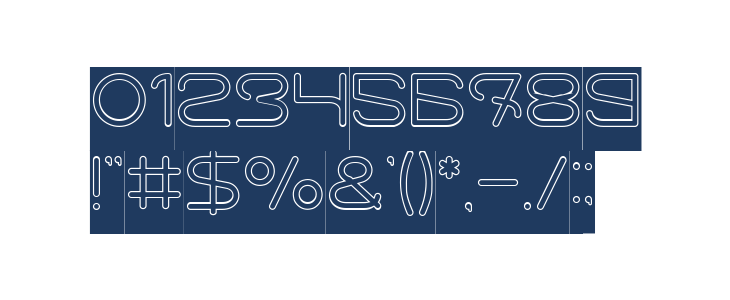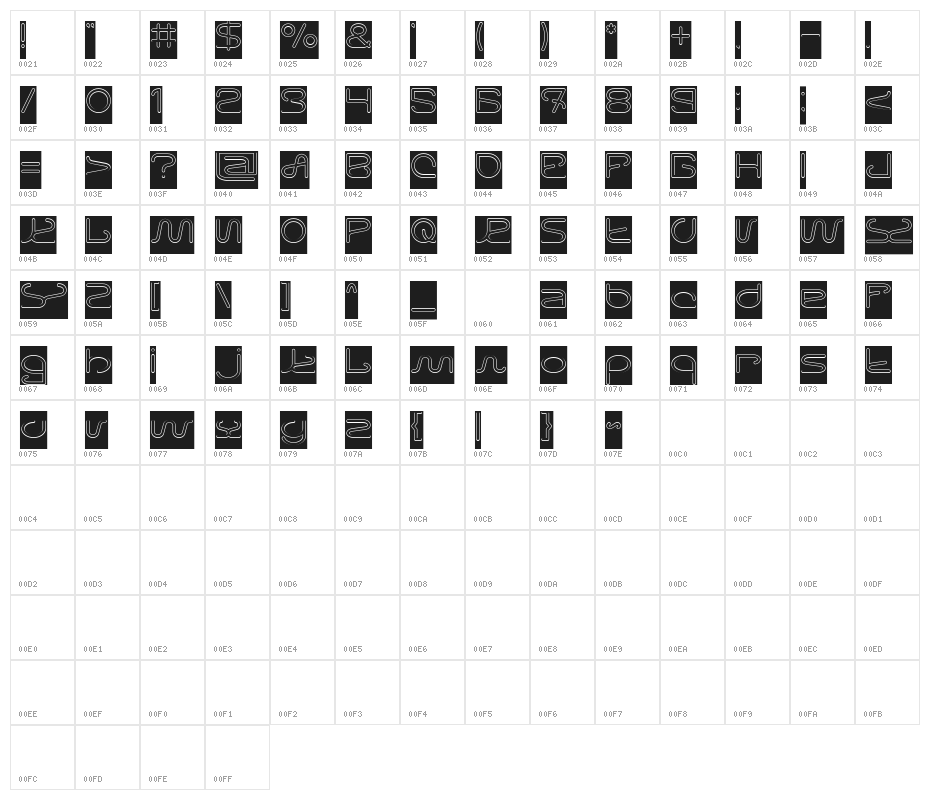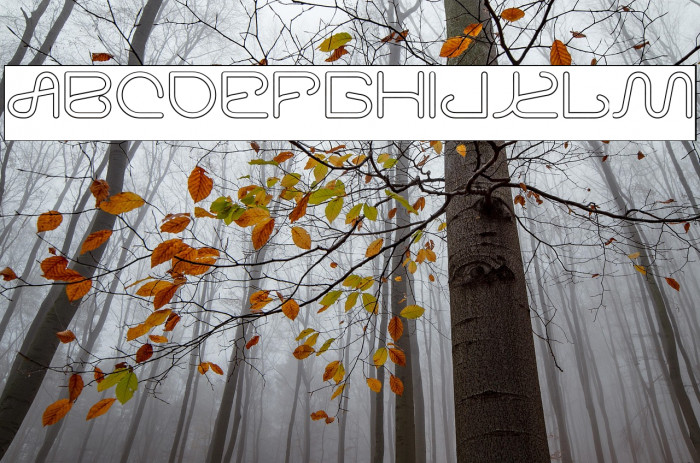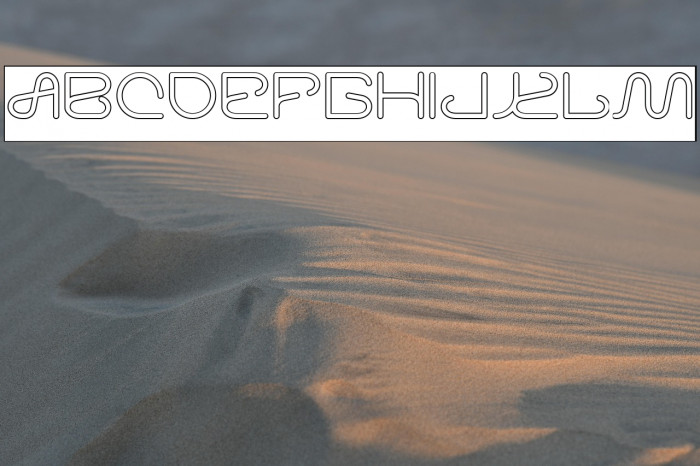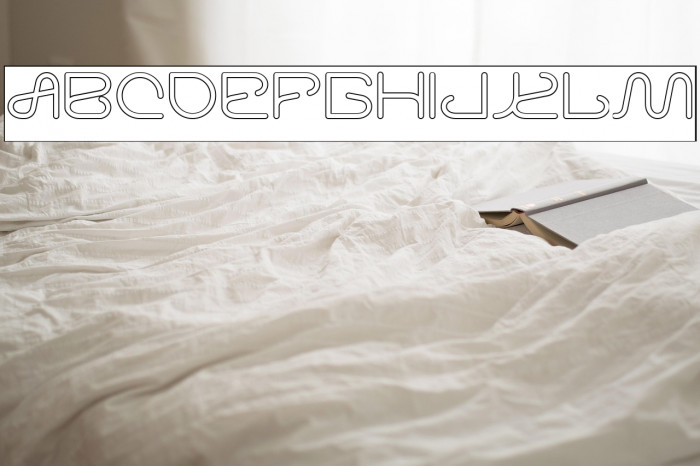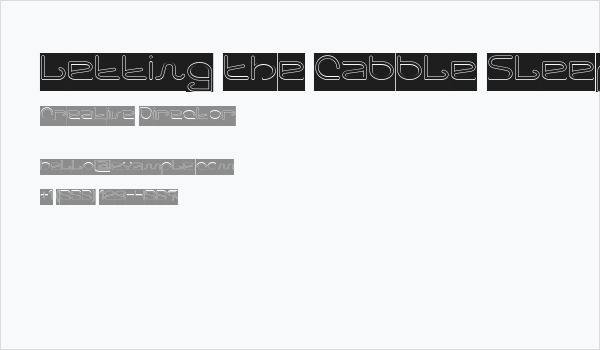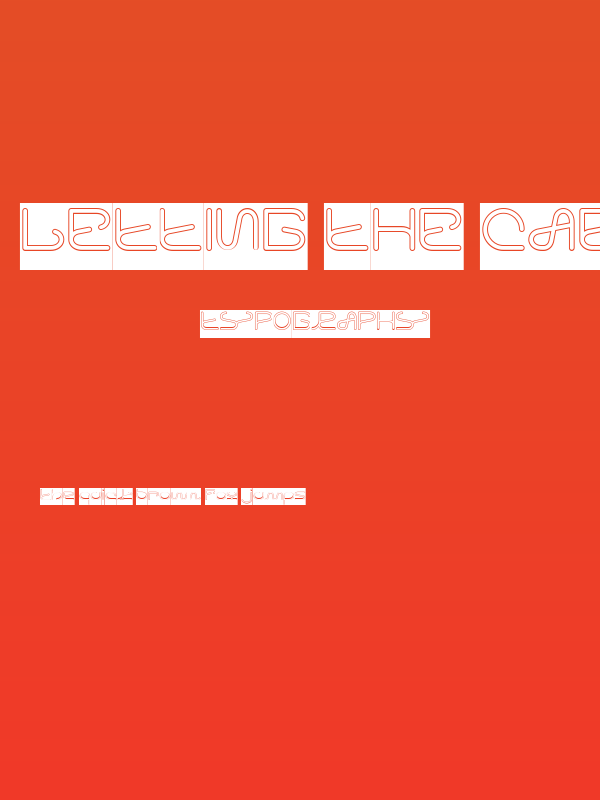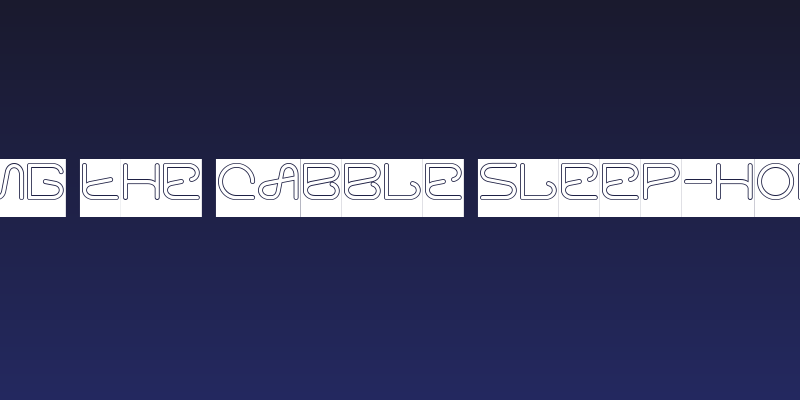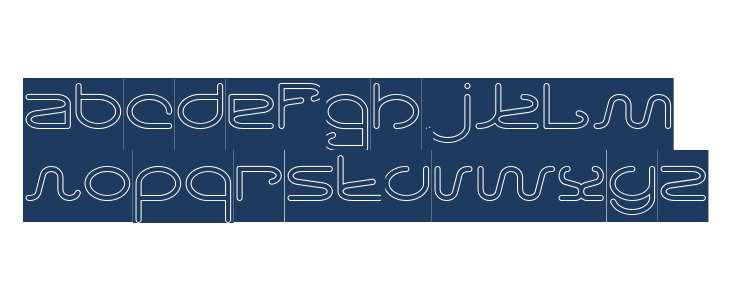
Letting The Cabble Sleep-Hollow Font
This font features a unique, futuristic design with a hollow, outlined style that gives it a modern and technological feel. The characters are composed of smooth, continuous lines that form each letter and number with a distinct, geometric precision. The uppercase and lowercase letters maintain a consistent style, with rounded edges and a uniform thickness throughout. The numbers and special characters follow the same design principles, ensuring a cohesive look across all glyphs. This font's open and airy design makes it stand out, while its clean lines provide clarity and readability.
| Proposed Projects | Ideal for technology branding, sci-fi themed projects, modern posters, and digital interfaces. |